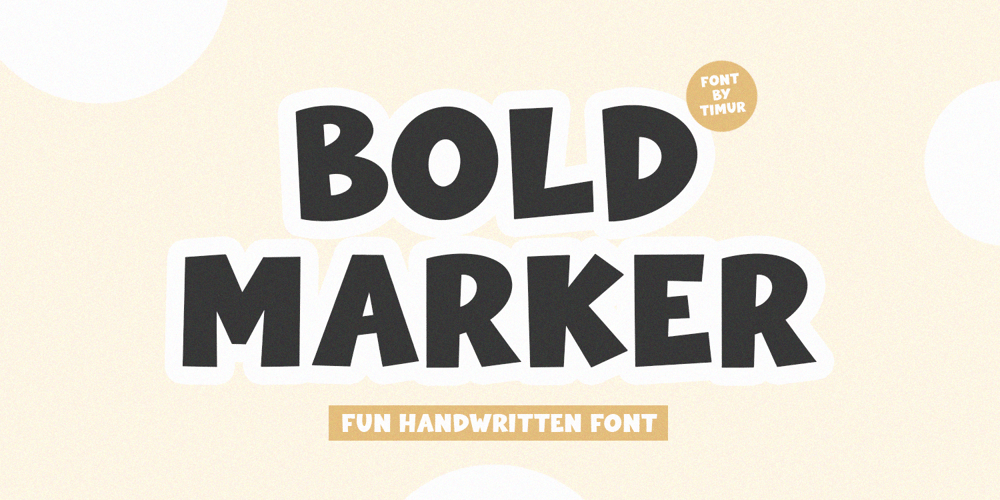
Bold Marker Font Family was designed by Wara Sigit Tri Pamungkas and published by Timurtype. Bold Marker contains 1 styles and family package options. Introducing by Timur typeProudly Present, Bold Marker A Handwritten FontBold Marker is perfect for product packaging, branding project, megazine, social media, wedding, or just used to express words above the background.This Bold Marker font includes:-Full Set of standard alphabet and punctuation & symbol-multilingual support.Embelish your designs with our original fonts.Enjoy the font,Thank you!